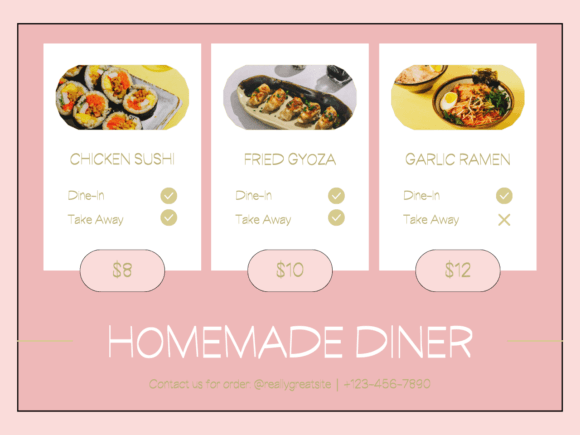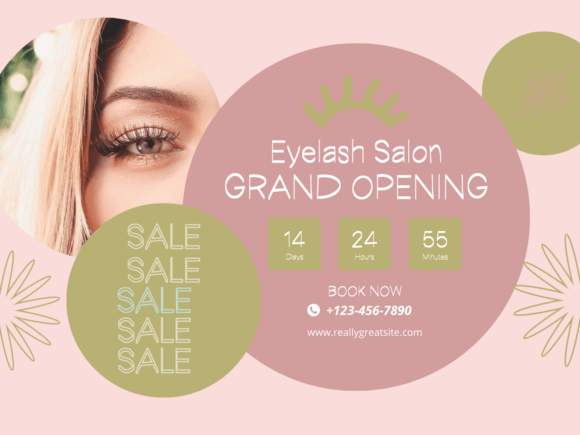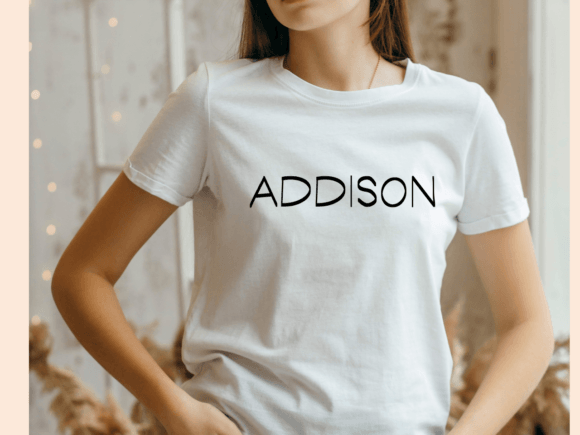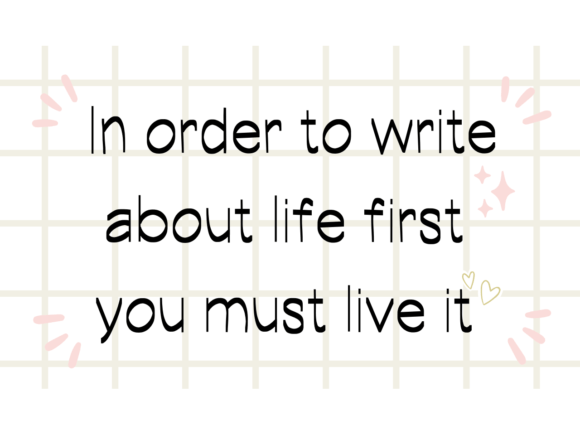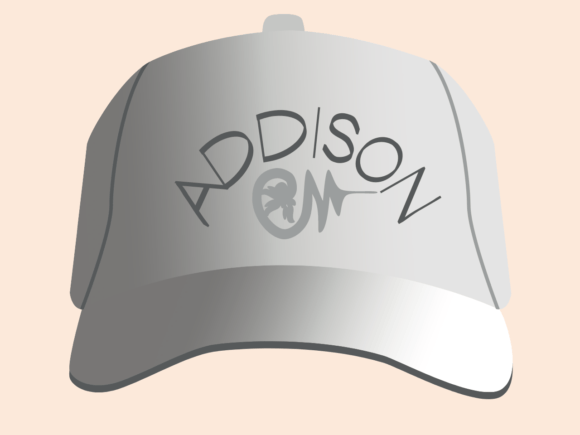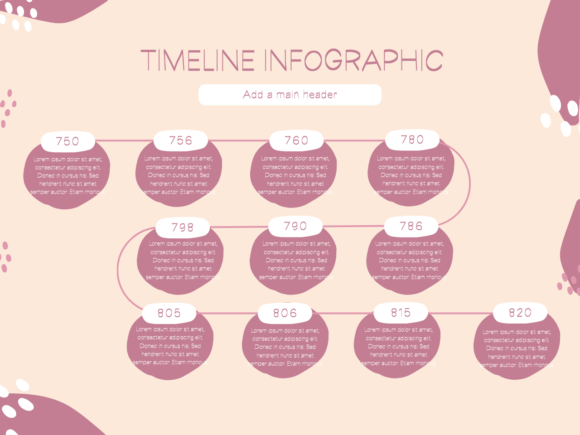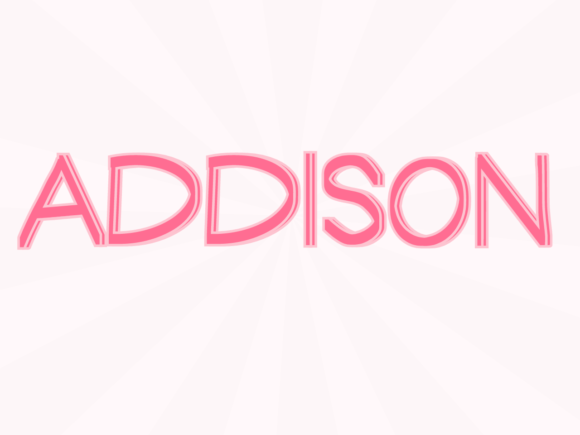
Discover the Charm of Addison Font: A Sweet and Friendly Handwritten Delight
Are you on the hunt for a font that adds a touch of warmth and personality to your designs? Look no further than the Addison Font, a sweet and friendly handwritten font that’s sure to capture your heart. With its natural and unique style, Addison is incredibly versatile and can be used in a wide range of design projects. The only limit is your imagination!
The Characteristics of Addison Font
Addison Font is a beautifully crafted handwritten font that’s designed to evoke a sense of friendliness and approachability. Its natural, flowing lines and subtle imperfections give it a charming, organic feel that’s perfect for designs that require a personal touch. Here are some of the key characteristics that make Addison Font so special:
• Handwritten style: Addison Font is a genuine handwritten font, crafted with love and care to give it a unique, human touch.
• Natural and unique: The font’s natural style and subtle imperfections make it stand out from more traditional fonts, giving your designs a distinctive look and feel.
• Versatile: Whether you’re designing a logo, a poster, or a digital product, Addison Font is incredibly versatile and can be used in a wide range of design projects.
• Easy to read: Despite its handwritten style, Addison Font is surprisingly easy to read, making it perfect for designs that require a clear and concise message.
What Can You Use Addison Font For?
The possibilities are endless when it comes to using Addison Font in your designs. Here are some ideas to get you started:
• Branding and logos: Addison Font is perfect for creating unique and memorable logos that reflect your brand’s personality.
• Posters and flyers: The font’s bold and playful style makes it ideal for creating eye-catching posters and flyers that grab attention.
• Digital products: Addison Font is a great choice for digital products such as ebooks, workbooks, and planners, adding a touch of warmth and personality to your designs.
• Social media graphics: The font’s friendly and approachable style makes it perfect for creating engaging social media graphics that resonate with your audience.
Why Choose Addison Font?
With so many fonts to choose from, why should you choose Addison Font for your designs? Here are just a few reasons:
• Unique style: Addison Font has a unique and distinctive style that’s sure to set your designs apart from the crowd.
• Easy to use: The font is incredibly easy to use, even for designers who are new to working with handwritten fonts.
• High-quality design: Addison Font is designed to the highest standards, ensuring that your designs look professional and polished.
• Support for multiple languages: The font supports multiple languages, making it a great choice for designers who work with international clients.
Addison Font is a sweet and friendly handwritten font that’s perfect for designers who want to add a touch of warmth and personality to their designs. With its natural and unique style, versatility, and ease of use, Addison Font is an excellent choice for a wide range of design projects. So why not give it a try and see the difference it can make in your designs?
In conclusion, Addison Font is a charming and versatile font that’s sure to capture your heart. Its unique style, ease of use, and high-quality design make it an excellent choice for designers who want to create beautiful and engaging designs. Whether you’re a seasoned designer or just starting out, Addison Font is definitely worth checking out.